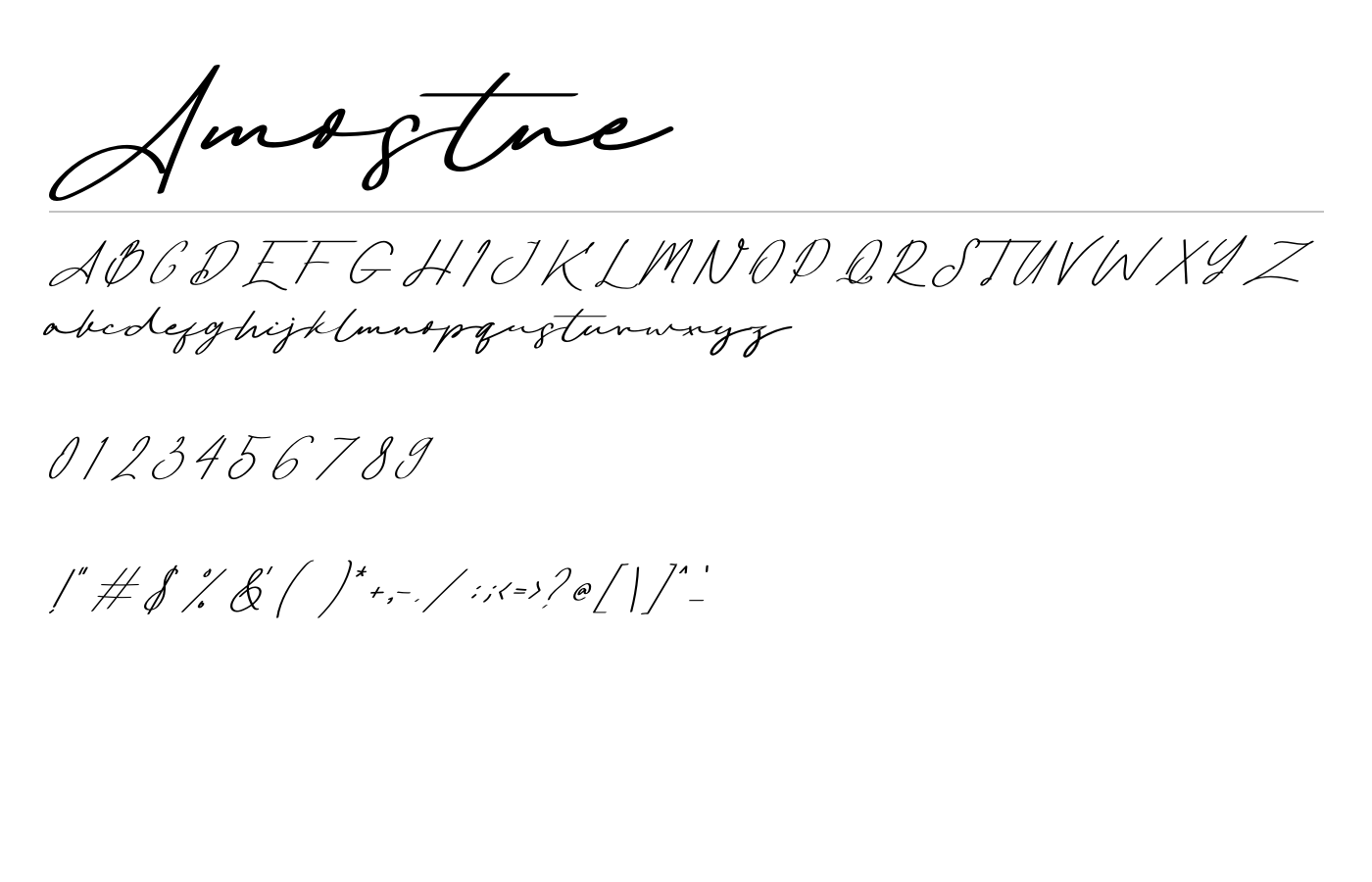
Amostne is an elegant, thin script font characterized by its delicate, flowing strokes and high contrast between thick and thin lines. With its fluid, hand-drawn appearance and refined letterforms, it conveys a sophisticated, personal touch that works beautifully for branding, invitations, and fashion-related designs where a graceful, stylish feel is desired. Its airy, cursive style makes it perfect for adding a luxurious and artistic vibe to logos, editorial headlines, and packaging.
Amostne Font
About Amostne Font
| Font family | Amostne Font |
| Designer | Jada Akbal |